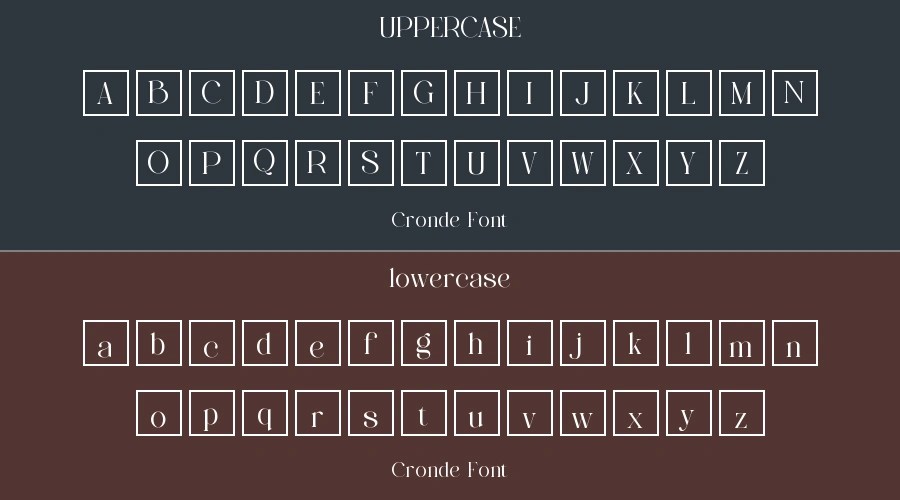
About Cronde Font
Cronde Font stands out for its distinctive combination of elegant spacing and production readiness. Ideal for event branding, it provides the versatility and cultural relevance that professional projects demand. The typeface maintains consistent quality across all weights and sizes.
Key features include refined wedge serifs and practical historical alternates, enhancing typographic expression. In body text applications, Cronde Font demonstrates exceptional large format impact. The character width and professional recognition contribute to its distinctive character and professional appeal.